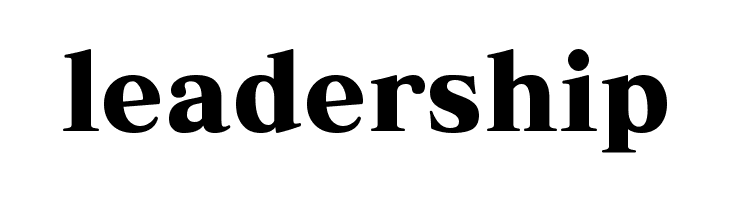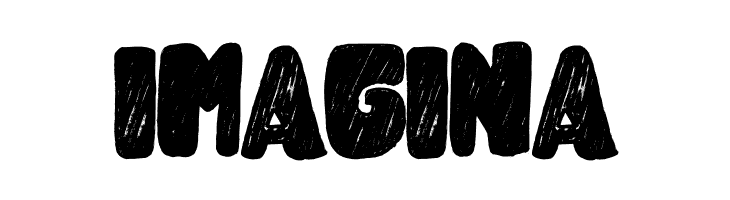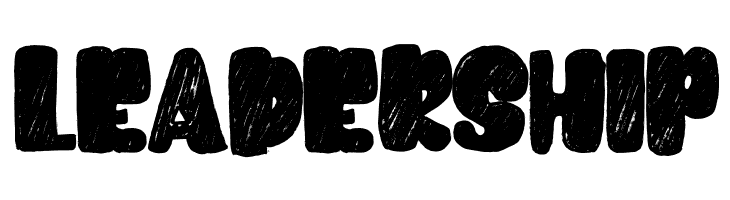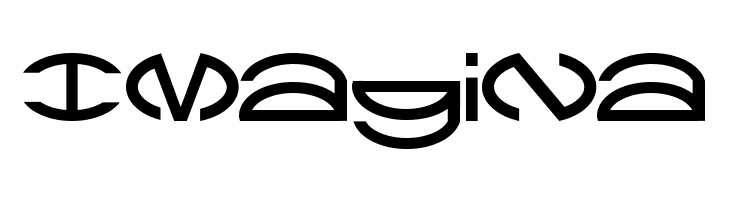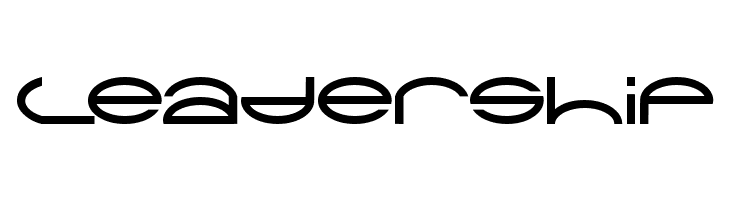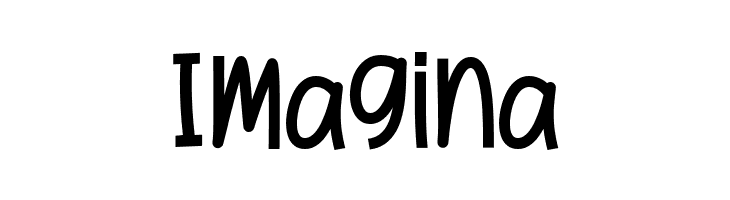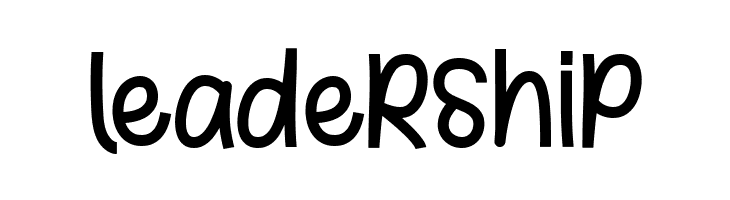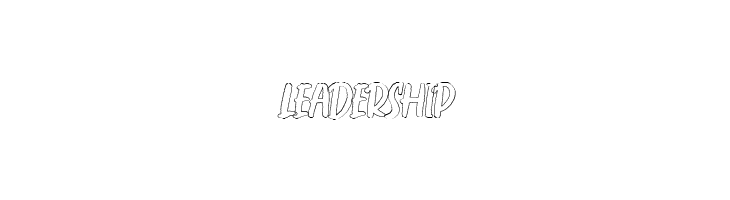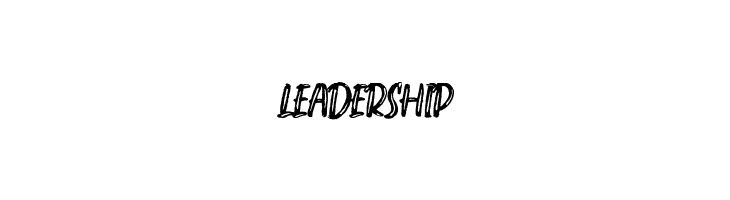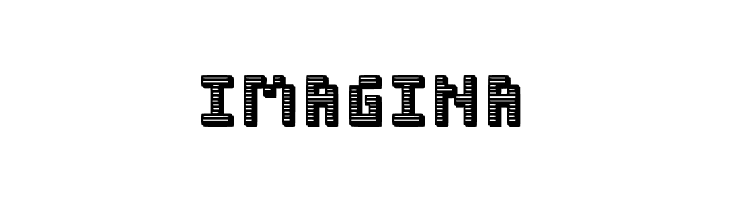
A bold, brush-style font with an energetic and artistic feel.
A dynamic brush outline font with a casual, artistic flair.
A playful, brush-style outline font with a dynamic and artistic flair.
A bold, playful script font with smooth, flowing curves.
Abstract, crop circle-inspired dingbat font with bold geometric symbols.
A retro, digital-inspired font with a bold, geometric design.
A bold, playful font with thick outlines and a cartoonish style.
A bold, playful font with chunky, irregular characters and a whimsical style.
An elegant, flowing script font with smooth, cursive strokes.
A bold, grunge-style font with a distressed, textured appearance.
A futuristic, geometric font with circular shapes and consistent stroke width.
A bold, playful brush-style font with a hand-drawn texture.
A bold, playful handwritten font with smooth curves and a whimsical style.
A playful, handwritten font with bold, irregular strokes and a whimsical charm.
A playful, handwritten font with bold, rounded strokes and a casual, friendly style.
A playful, bold font with a hand-drawn, whimsical style.
A bold, brush-style font with an energetic and hand-drawn appearance.
A bold, rounded sans-serif font with smooth curves and consistent strokes.
A playful, casual handwritten font with smooth curves and uniform strokes.
A bold, classic serif typeface with strong vertical strokes and pronounced serifs.
A bold, angular decorative font with a geometric style.
A playful, handwritten font with a casual and lively style.